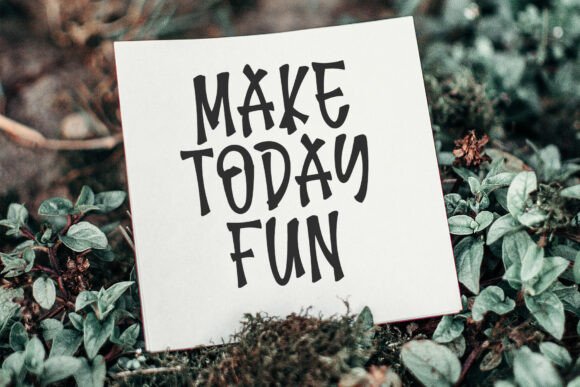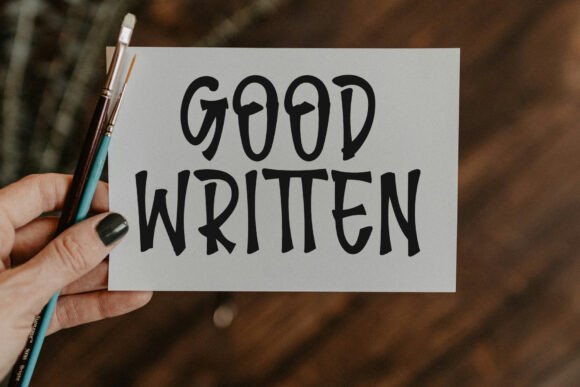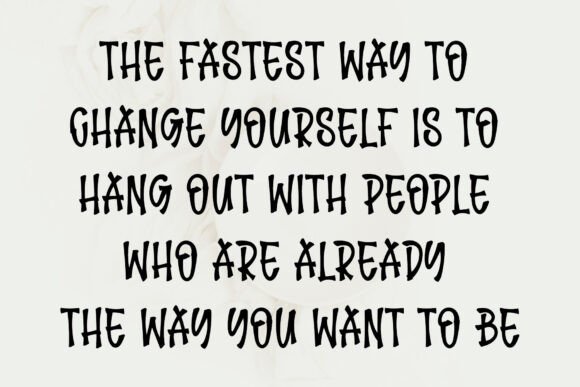
Introduction to Outbroad Font
Remember that moment when you’re brainstorming ideas for a creative project, and you can’t quite put your finger on the perfect design element? The perfect font can make all the difference. As designers, we know how crucial it is to have a reliable design resource at our disposal. That’s why we’re excited to introduce you to the Outbroad Font – a sweet and friendly display font that’s sure to elevate your designs.
With its natural and unique style, Outbroad Font is incredibly versatile and can be used in a wide range of creative projects. Whether you’re working on a branding project, designing a website, or creating social media graphics, this high-quality font is the perfect addition to your toolkit. And the best part? You can download it for free, complete with a transparent background, making it easy to integrate into your designs.
So, what makes Outbroad Font so valuable for designers? Its ability to add a touch of personality and whimsy to your designs, while still maintaining a level of professionalism and sophistication. It’s the perfect way to add some visual interest to your projects and make them truly stand out.
Key Features of Outbroad Font
- High-quality design resource ideal for creative projects requiring a modern and sleek aesthetic.
- Unique characteristic: a unique blend of modern and minimalist styles, making it a versatile choice for various design projects.
Honest Review: Outbroad Font
I recently came across the Outbroad Font and I must say it’s been a game-changer for my creative projects. The moment I saw its sleek and modern design, I knew it was a design resource I could rely on.
- High-quality glyphs and letters that are perfect for logos, headings, and body text.
- The font is highly versatile and can be used for a wide range of creative projects.
- The font may not be as bold or dramatic as some other fonts on the market.
- Some users may find the font to be a bit too minimalist for their taste.
Overall, I’m really impressed with the Outbroad Font and I would definitely recommend it to fellow designers. Its high quality, versatility, and free download make it a must-have in any design arsenal.
The Outbroad Font is a high-quality design resource perfect for creative projects that require a unique touch. This versatile font is available for free download with a transparent background, making it easy to incorporate into various designs.
Tips for Getting the Most Out of Outbroad Font
Experiment with different font sizes, colors, and combinations to create a unique visual identity for your project. You can also pair Outbroad Font with other design elements, such as graphics and images, to add depth and interest to your design.
The Outbroad Font is ideal for a variety of creative projects, including graphic design, digital art, and branding. Its high-quality design and transparent background make it perfect for use in logos, business cards, and other marketing materials.